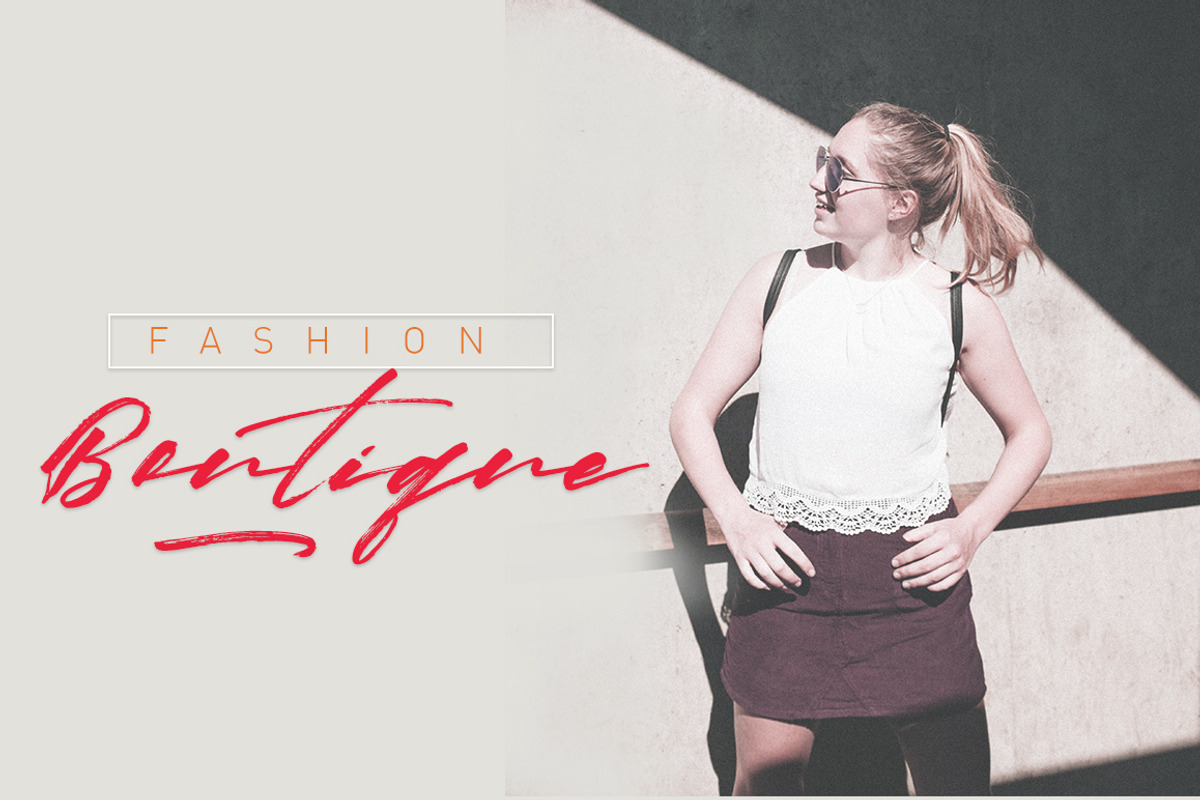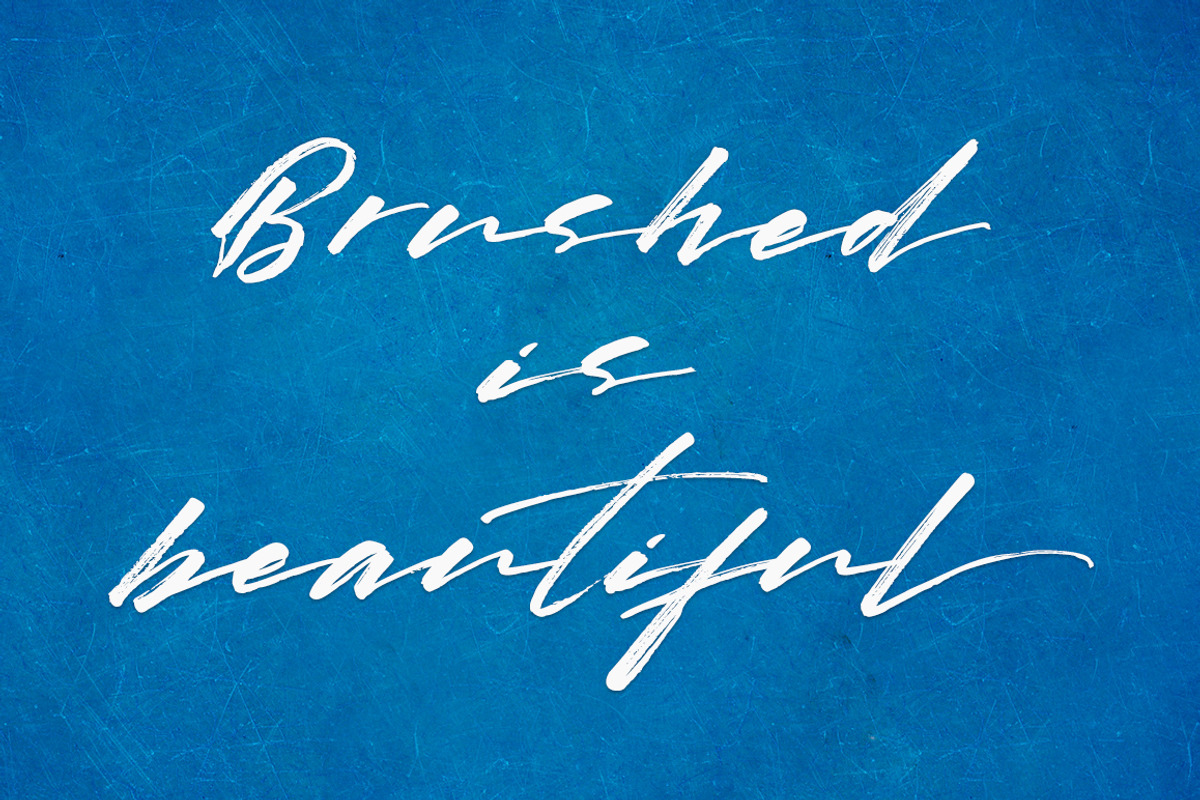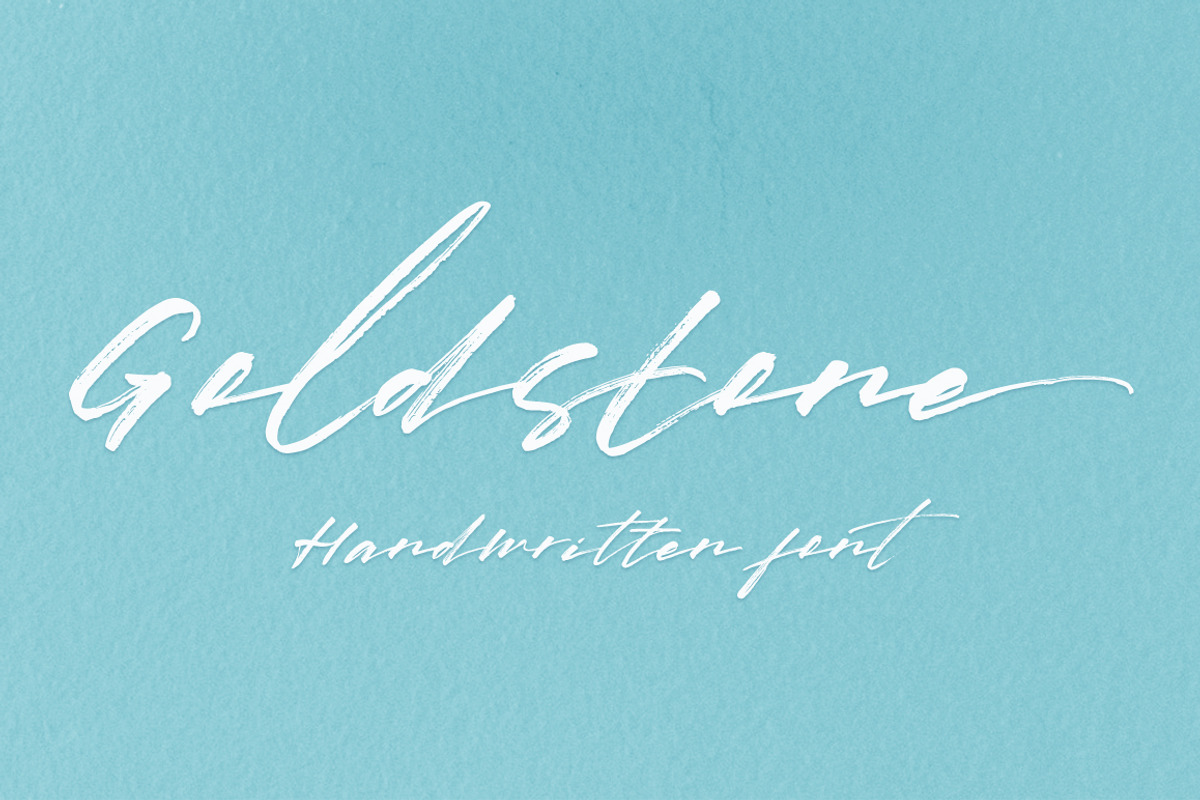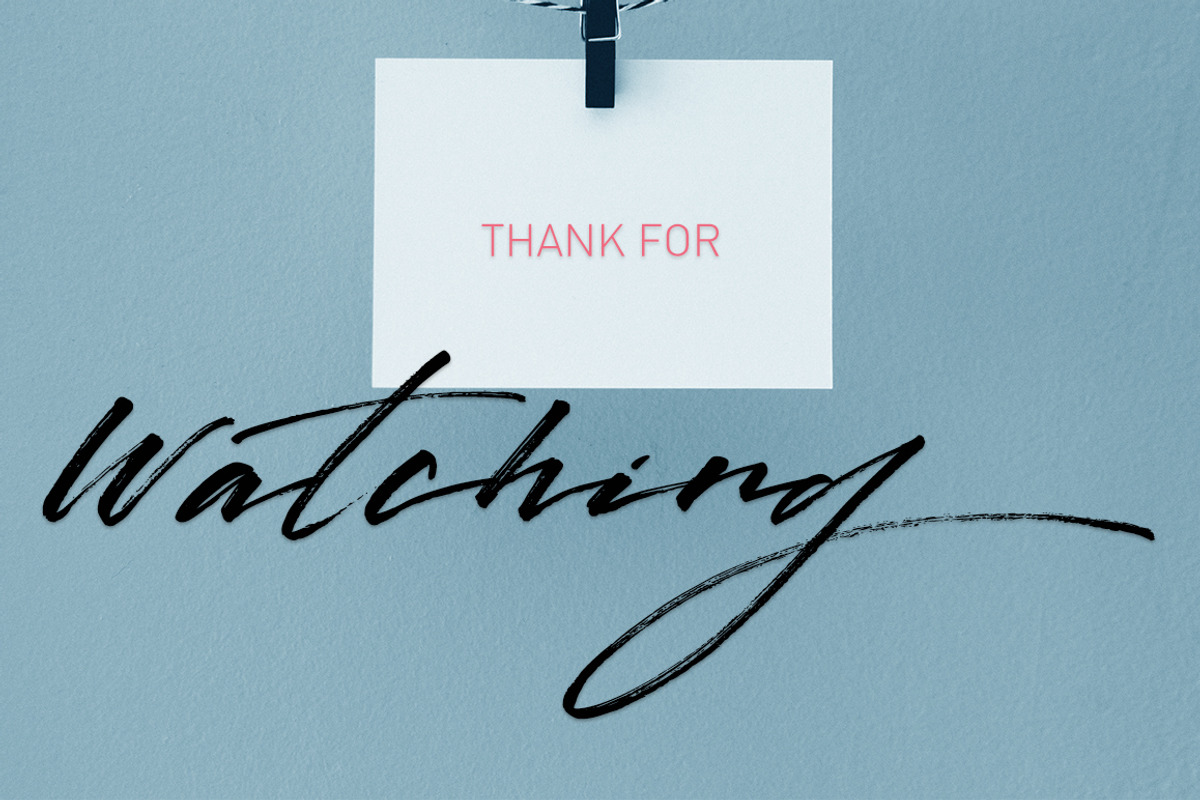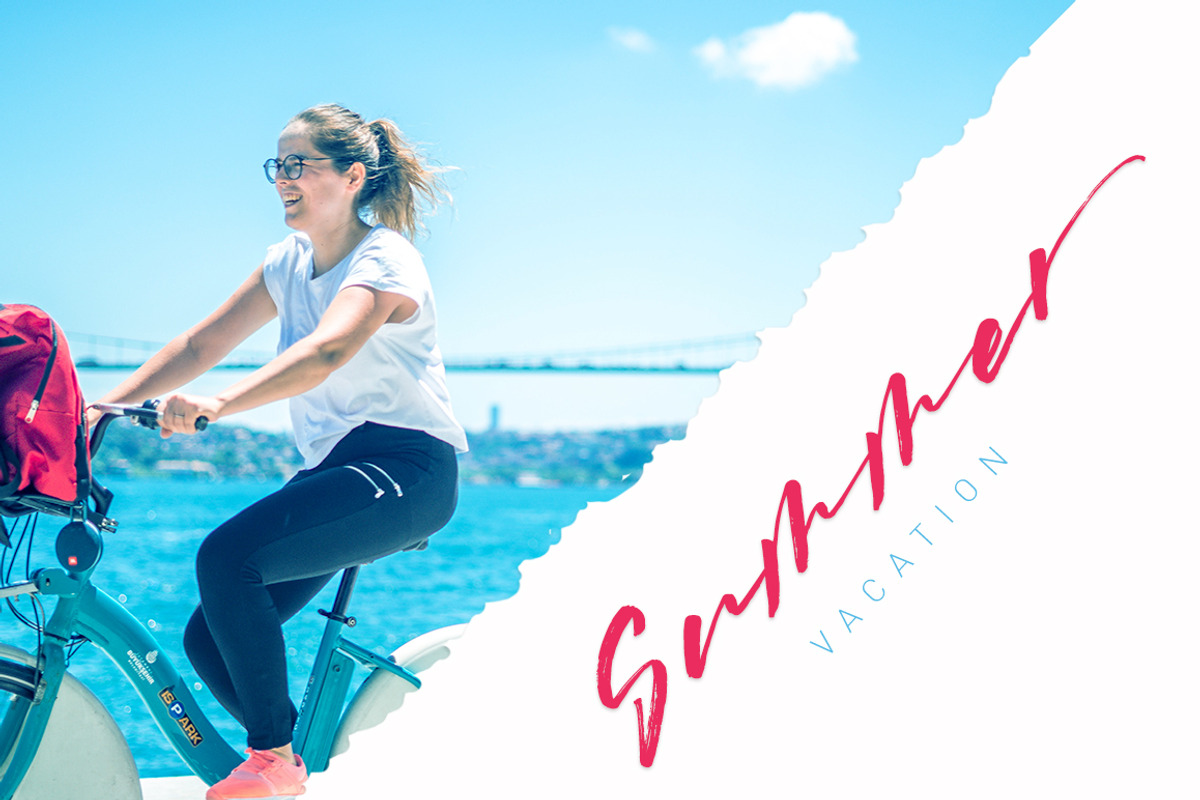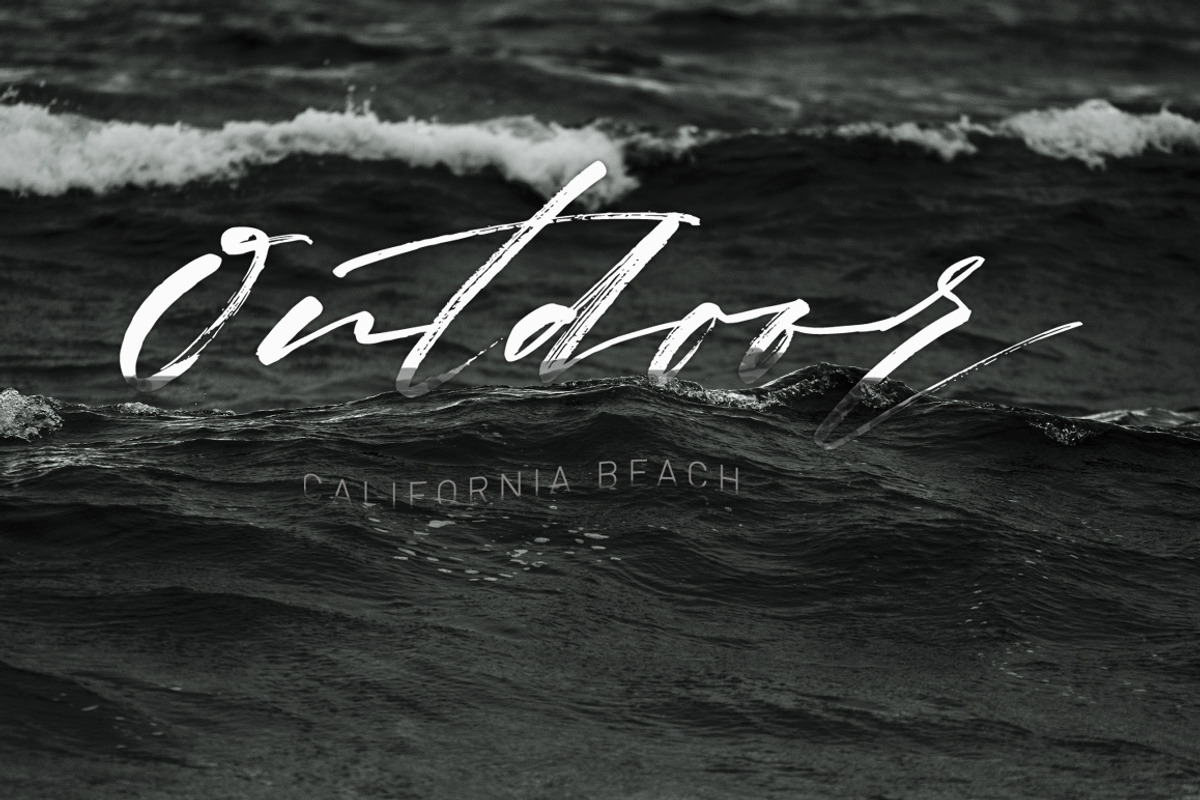
Goldstone brush font
Goldstone is a new, very interesting brushed font. This font family is perfect for branding projects, logos, product packaging, posters, invitations, greeting cards, news, blogs, everything including personal charm and more.
Goldstone offers OpenType features, some ligatures and swashes, initial and terminal letters, and International support for most Western Languages.